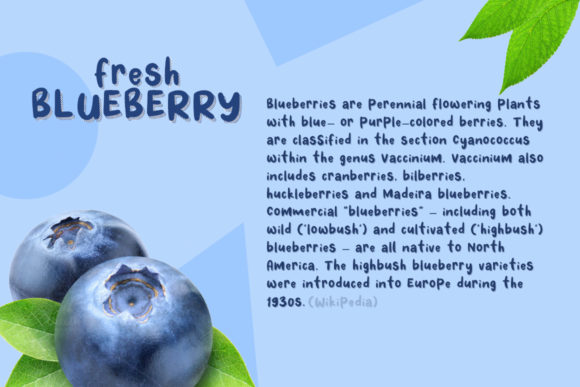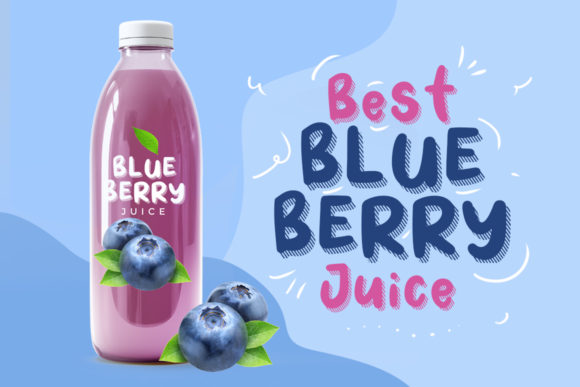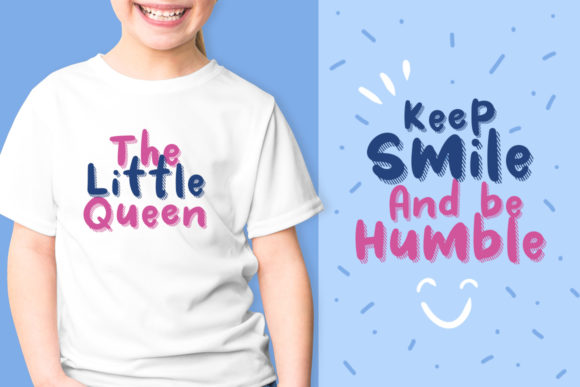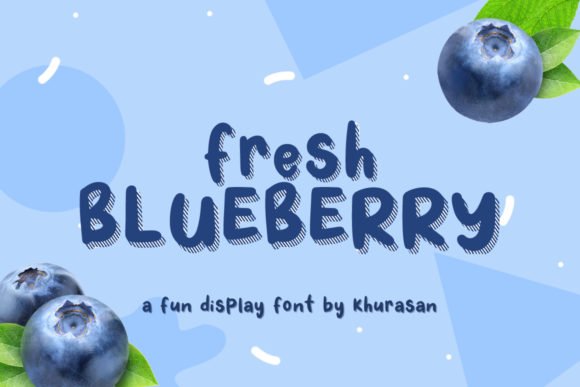
Introduction to Fresh Blueberry Font
Fresh Blueberry is a fun & casual display font.
Its unique style is perfect for any creative design .
Why Choose Fresh Blueberry Font?
Fresh Blueberry Font offers exceptional quality and versatility, making it a valuable addition to your design toolkit. Whether you’re creating for personal projects or commercial use, Fresh Blueberry Font delivers professional results.